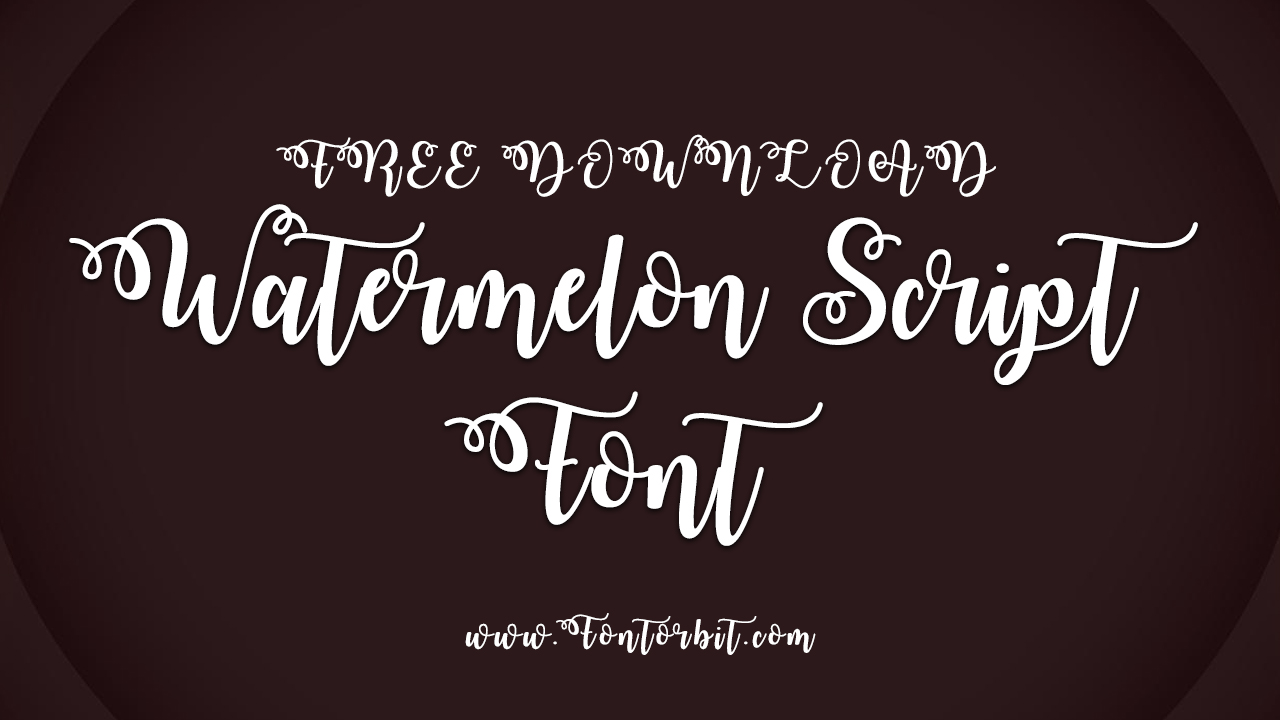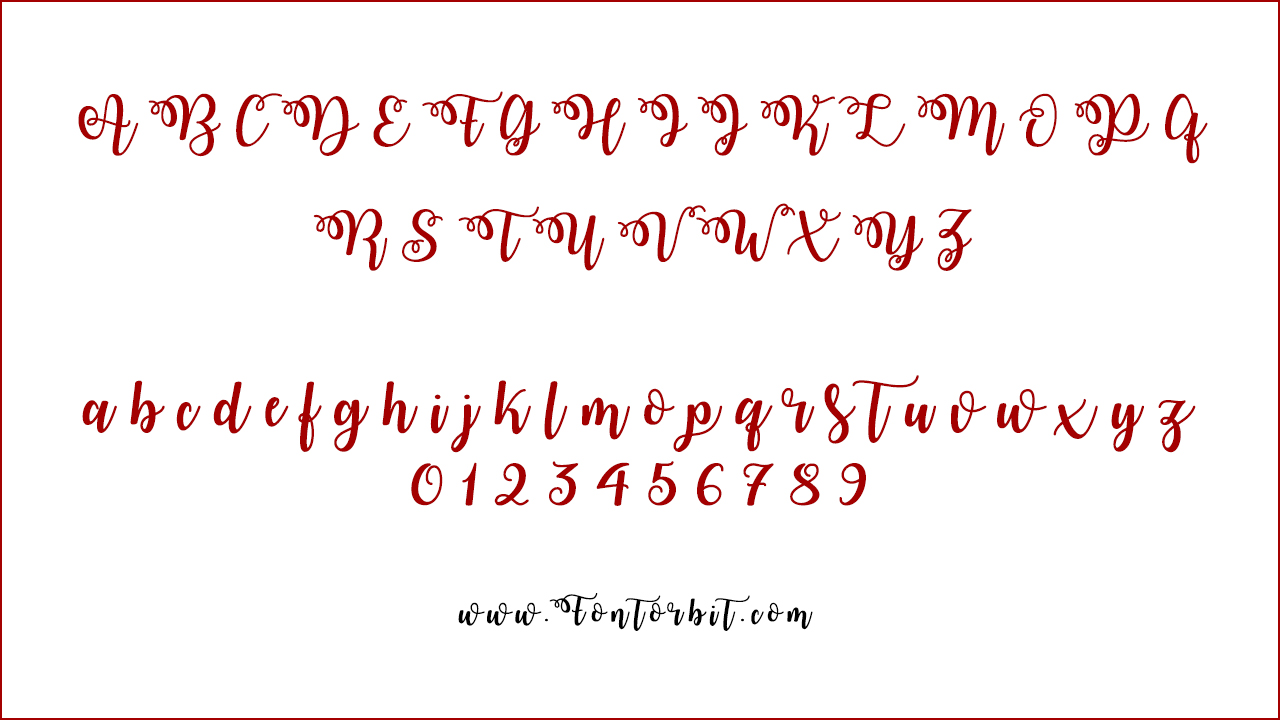
Watermelon Script Font is a charming and playful cursive font designed by Misti’s Fonts. Initially released on August 8, 2016, this font quickly became popular due to its handwritten, casual style, making it a favorite choice for personal projects and creative design work.
Its fluid and organic letterforms give a sense of joy and creativity, suitable for various applications, particularly those seeking a lighthearted and informal aesthetic.
Watermelon Script is a single-style script font characterized by its elegant, flowing lines and cursive letterforms. Despite being available as a standalone font, it offers a comprehensive character set that includes uppercase and lowercase letters, numerals, basic punctuation, and special characters.
Watermelon Script Font’s playful and cursive style makes it a perfect fit for a variety of creative and personal design projects. Its handwritten look brings a warm and informal touch to the text, making it suitable for the following applications:
- Home Decor Items
- Craft Projects
- Wedding Invitations
- Greeting Cards
Watermelon Script Font is a delightful and versatile cursive font that excels in a variety of design contexts. Its handwritten appearance and friendly character make it an excellent choice for projects that require a personal, informal, or playful touch.
Whether you’re designing wedding invitations, social media graphics, or personal crafts, Watermelon Script Font provides the charm and personality needed to bring your creative ideas to life.
1.What Are The Characteristics Of Watermelon Script Font?
Watermelon Script features a playful, hand-drawn look with smooth, flowing curves, and a casual style. Its irregular letterforms and whimsical details make it feel friendly and approachable, perfect for informal and creative designs.
3.Can Watermelon Script Font Be Used For Logos And Branding?
Yes, Watermelon Script is great for logos and branding, especially for businesses that want to convey a fun, informal, or creative vibe, such as cafes, boutiques, or creative services. Its playful style appeals to a youthful and vibrant audience.
4.When Was The Watermelon Script Font Created?
Watermelon Script was created on August 8, 2016, by Misti’s Fonts, a designer known for creating fun and playful script fonts that are widely used in personal and informal design projects.